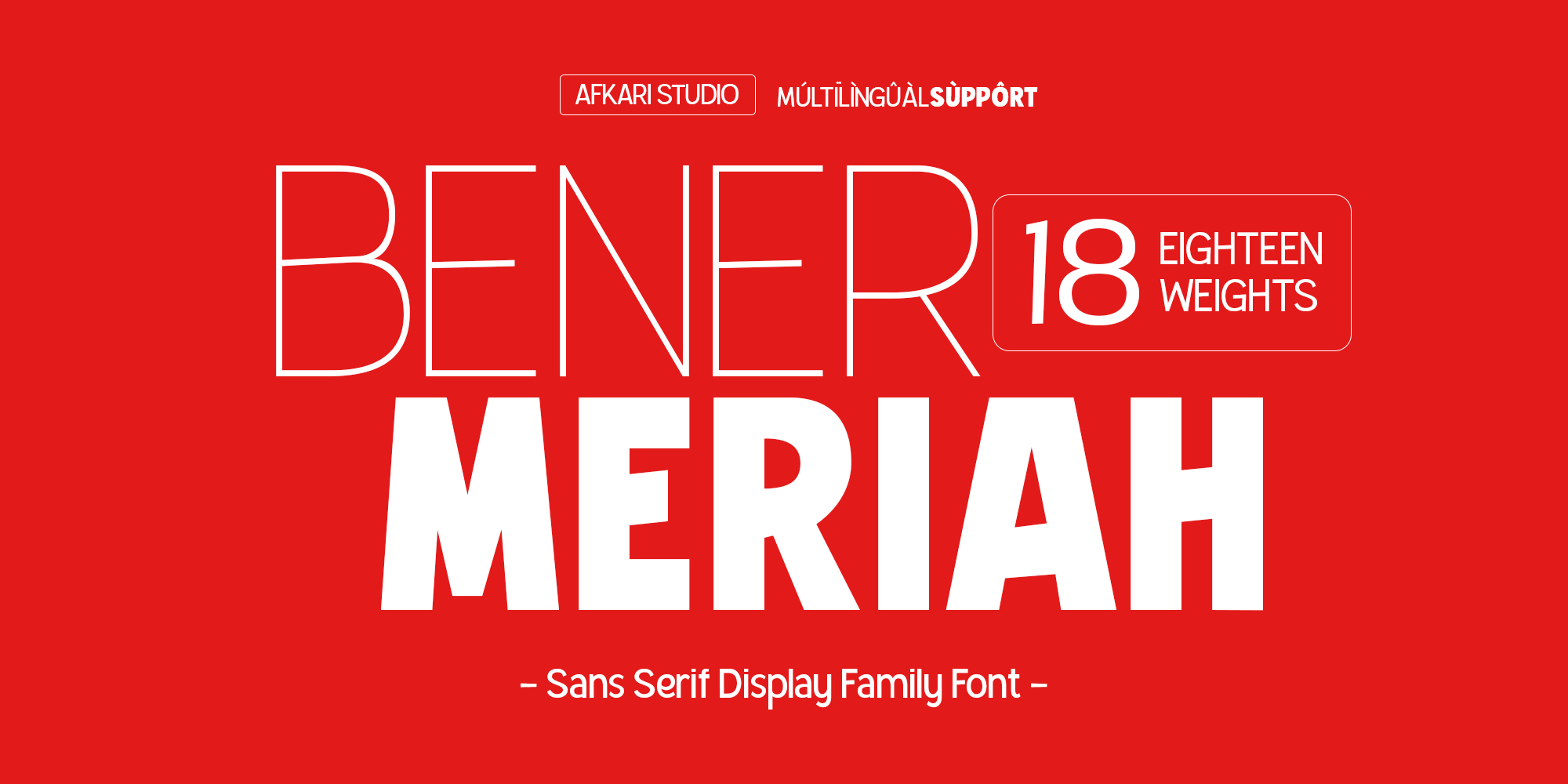
Bener Meriah
Bener Meriah is a sans serif font family. This typeface has eighteen styles and was published by Afkari Studio.
Bener Meriah is a sophisticated and highly versatile sans-serif font family meticulously crafted for designers who demand both elegance and functionality. This typeface offers an impressive range of 18 weights, from the delicate and airy Thin to the commanding and bold Black, with matching Italics for each weight. The result is a comprehensive toolkit that meets the needs of modern design projects across a variety of styles and applications.
Each weight of Bener Meriah has been carefully adjusted for optimal balance, ensuring that even the thinnest and boldest options maintain visual harmony. The addition of matching italics further expands the font’s versatility, allowing designers to add emphasis and variety without sacrificing cohesion.